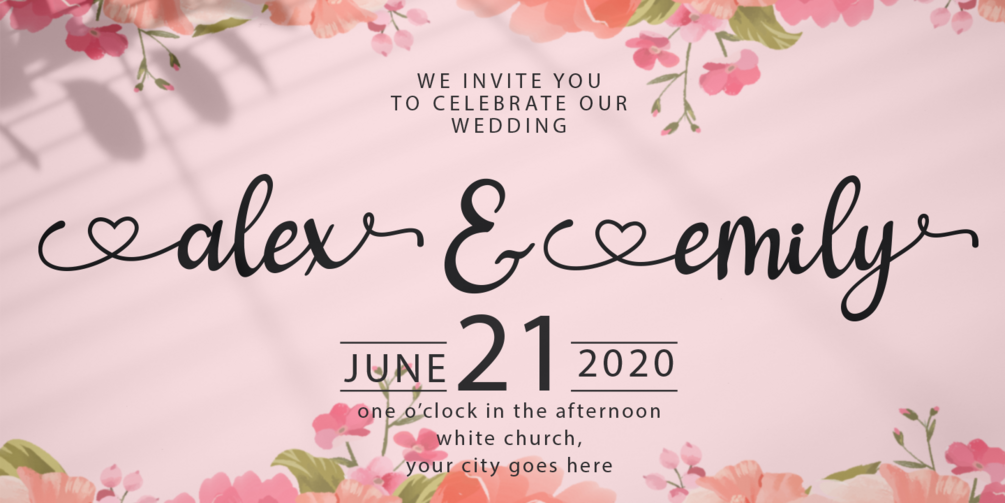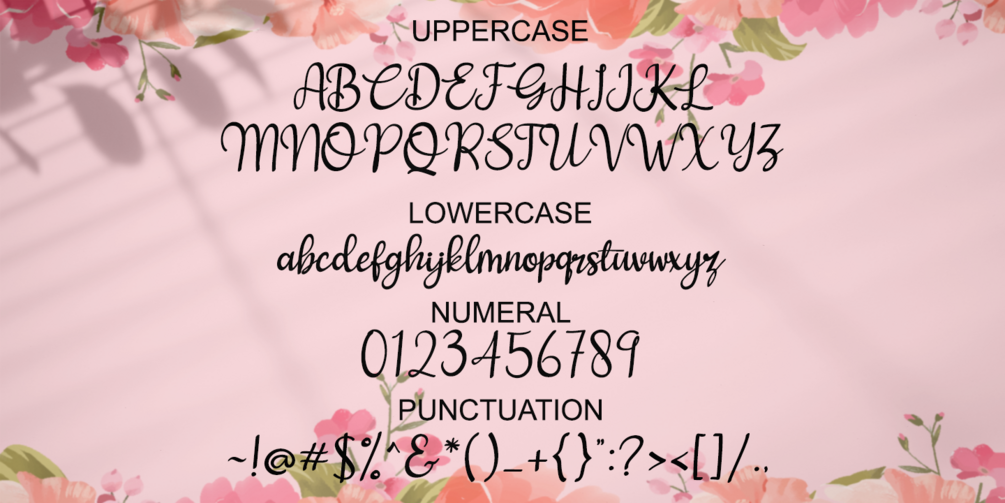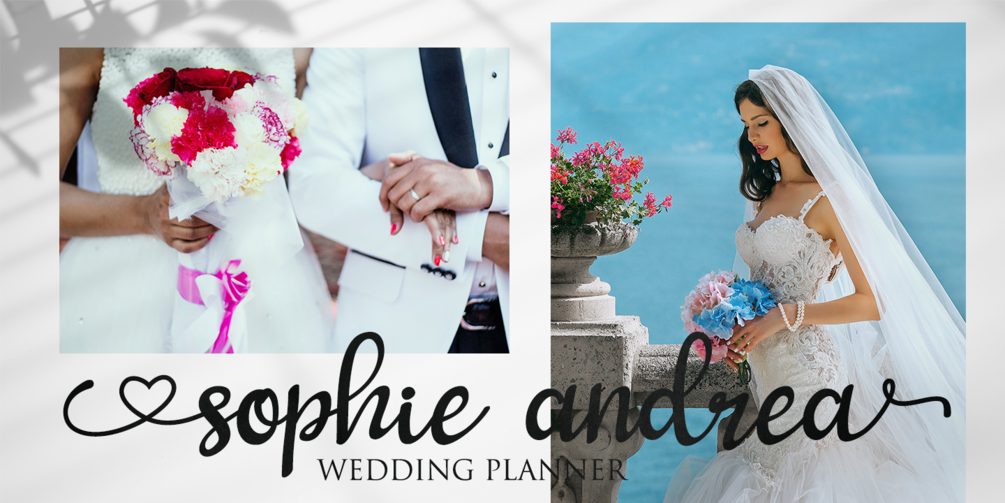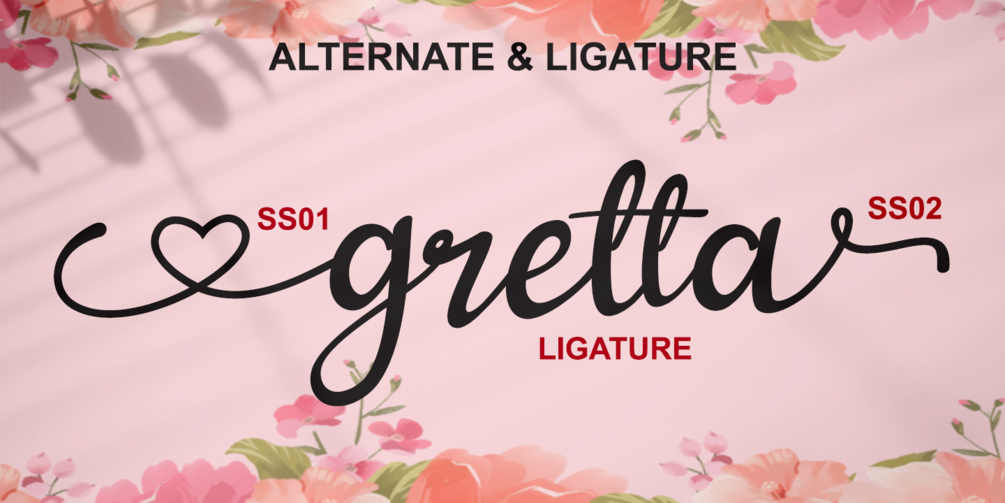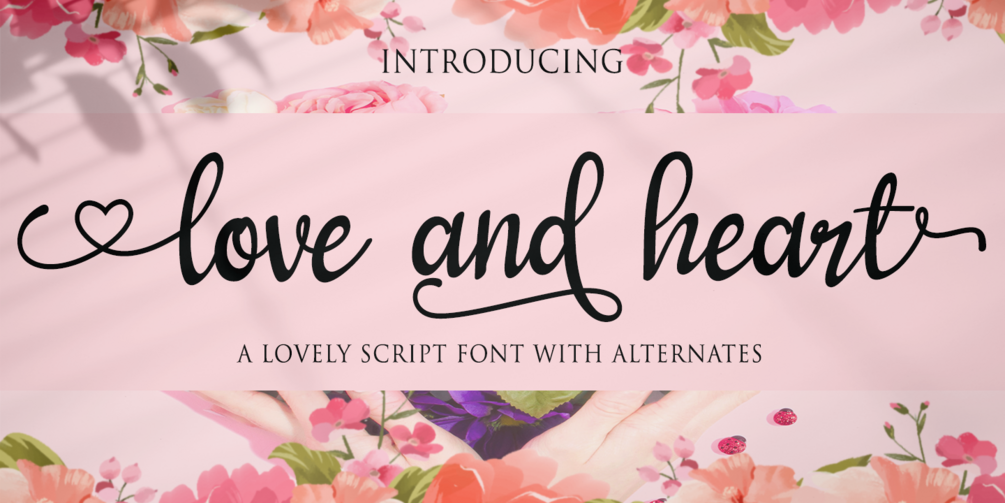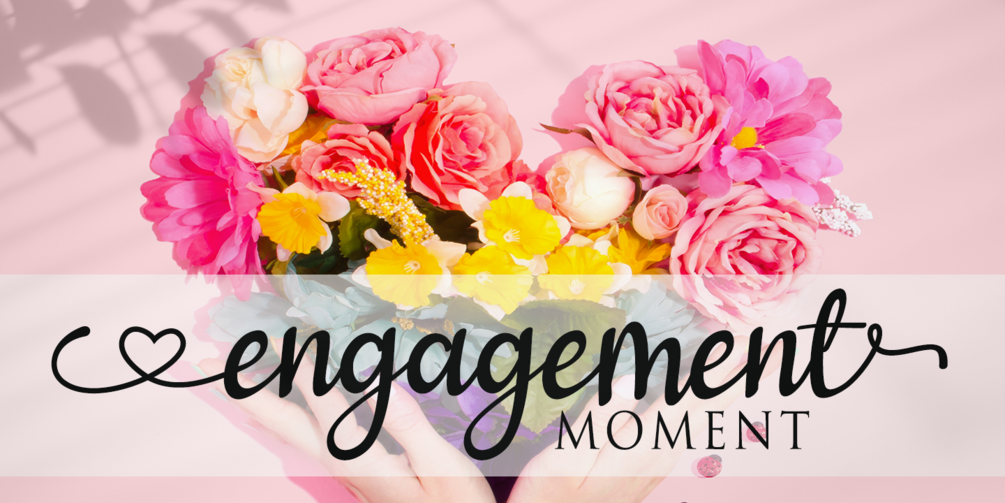
Love and Heart
Love and Heart is a sweet, soft hand-lettered handwritten font. The playful rounded characters make it the perfect font for creating amazing designs. Fall in love with its authentic feel and use it to create gorgeous wedding invitations, beautiful stationary art, eye-catching social media posts, and cute greeting cards.
This font includes over 256 glyphs, including over 57 alternate characters with swashes.
It has over 60 extended Latin characters for language support.
Ligature Character
Multilingual Support
Alternate Character